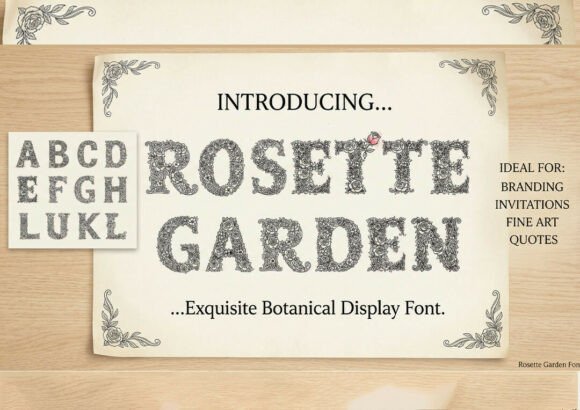
Introduction to Rosette Garden Font
Have you ever found yourself stuck in a creative rut, searching for that perfect design element to bring your project to life? As designers, we’ve all been there – pouring over endless options, only to feel like something’s missing. But what if I told you there’s a secret garden of inspiration waiting to be discovered?
Enter the enchanting Rosette Garden Font, a true masterpiece of typography that’s sure to captivate your audience. This exquisite alphabet is a work of art in its own right, crafted from delicate line-drawn roses, leaves, and vines that seem to bloom on your screen. With its transparent background and high-quality design, it’s the perfect addition to any creative project, from elegant wedding invitations to sophisticated branding.
Key Features of Rosette Garden Font
- High-quality design: Rosette Garden Font offers a beautiful and elegant design, perfect for creative projects.
- Transparent background: This font features a transparent background, allowing for easy layering and customization.
- Large character set: Rosette Garden Font includes a wide range of characters, including uppercase and lowercase letters, numbers, and punctuation marks.
- Resolution-independent: The font is designed to be resolution-independent, ensuring that it looks great at various resolutions and sizes.
- Perfect for creative projects: Rosette Garden Font is an ideal choice for designers working on creative projects, such as wedding invitations, greeting cards, and more.
Honest Review: Rosette Garden Font
I recently stumbled upon the Rosette Garden Font while searching for a high-quality, unique font to use in a creative project. I was thrilled to find that it’s available for free download, which made my design process even more enjoyable.
What works well with this font is its elegant and delicate design, perfect for adding a touch of sophistication to any project. The transparent background allows for seamless integration with any image or design element, giving you complete control over the final look. I particularly love using it for creating invitations, posters, and other visual materials that require a bit of flair.
- ✨ Elegant and delicate design
One limitation I’ve noticed is that the font may not be suitable for projects that require a bold, attention-grabbing font. It’s best used in situations where a subtle, high-quality font is needed.
Overall, I’m impressed with the Rosette Garden Font and would highly recommend it to designers looking for a beautiful, free design resource. Its versatility and high-quality design make it a valuable addition to any designer’s toolkit.
Tips for Getting the Most Out of Rosette Garden Font
To get the most out of the Rosette Garden Font, use it on a transparent background to create a beautiful and elegant design. You can also use it in combination with other design elements, such as images and shapes, to create a unique and creative project.
The Rosette Garden Font is perfect for use in wedding invitations, floral designs, and other creative projects that require a touch of elegance and sophistication. With its high-quality design and transparent background, the Rosette Garden Font is a valuable resource for any designer or artist.